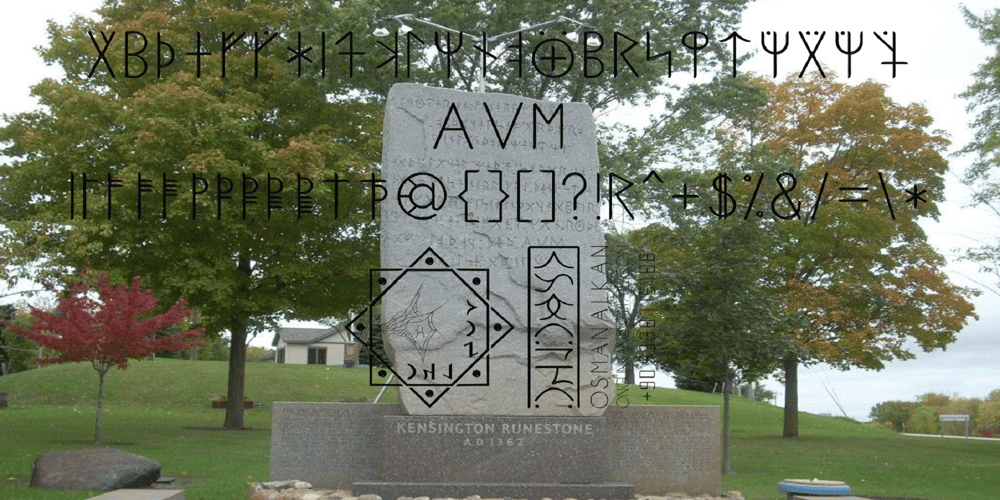
Ongunkan Kensington Runestone Font Family was designed by Osman Nuri ALKAN and published by Runic World Tamgacı. Ongunkan Kensington Runestone contains 1 styles and family package options. The Kensington Runestone is a rune-covered slab of brownstone that was claimed to have been discovered in central Minnesota in the United States in 1898. Olof Öhman, a Swedish immigrant, reported that he dug it out of a field in the largely rural town of Solem in Douglas County. It was then named after the nearest settlement, Kensington. The inscription claims to be a record left behind by Scandinavian explorers in the 14th century (internally dated to 1362). There has been a long-standing debate as to the stone’s authenticity, but since the first scientific review in 1910, scientific consensus has classified it as a 19th-century hoax, and some critics have directly accused Öhman of fabricating it. there is community.